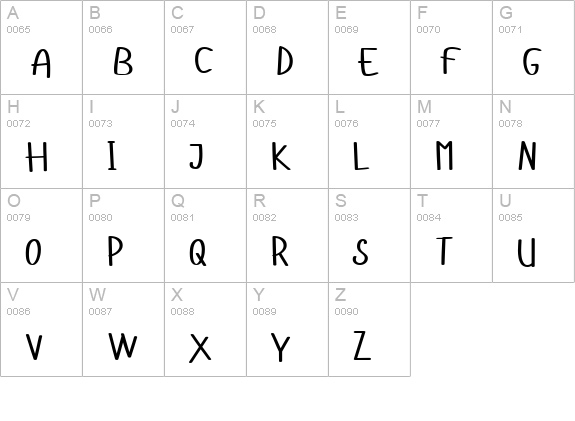
Hangyaboly Font Details
Hangyaboly font is a captivating and versatile typeface that seamlessly combines elegance with a touch of whimsy. This unique font was inspired by the intricate and fascinating world of ants, capturing their industrious nature and the delicate beauty of their trails. With its graceful curves and intricate letterforms, Hangyaboly font is perfect for a wide range of design projects. Whether you're creating eye-catching logos, captivating headlines, or elegant invitations, this font will add a touch of sophistication to any piece. One of the most remarkable aspects of Hangyaboly font is that it is completely free. Yes, you heard it right! This font is freely available to download at FontsMarket.com. So, regardless of whether you're a professional designer or just a typography enthusiast, you can enjoy the beauty and versatility of Hangyaboly font without any cost. The designers of Hangyaboly font have taken great care in creating a font that is not only visually appealing but also highly legible. Each letter has been meticulously crafted to ensure clarity and readability, making it a perfect choice for both print and digital media. Furthermore, Hangyaboly font offers a wide range of characters, including uppercase, lowercase, numerals, punctuation marks, and special symbols, allowing you to fully express your creativity and bring your designs to life. So, why wait? Don't miss out on the opportunity to enhance your design projects with the elegance and charm of Hangyaboly font. Visit FontsMarket.com today and download this incredible font for free. Let your creativity soar and make your designs truly stand out with Hangyaboly font.